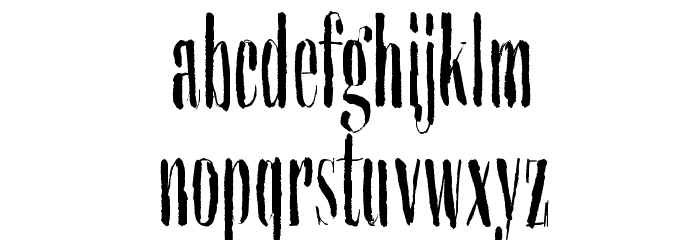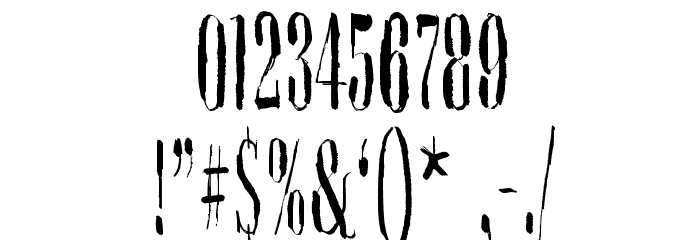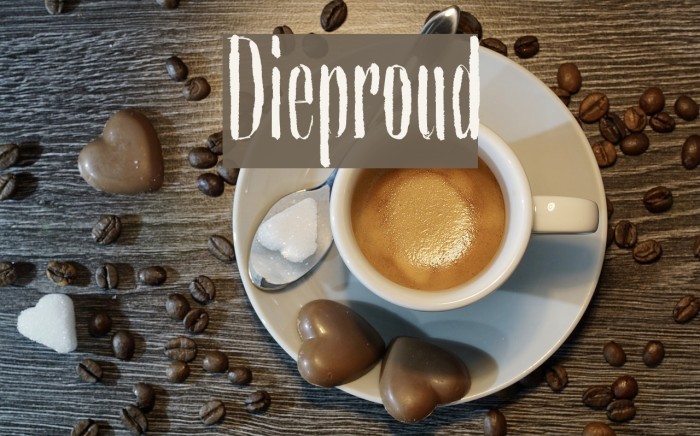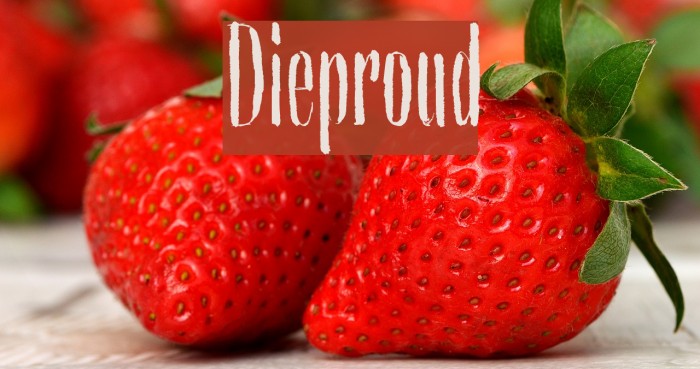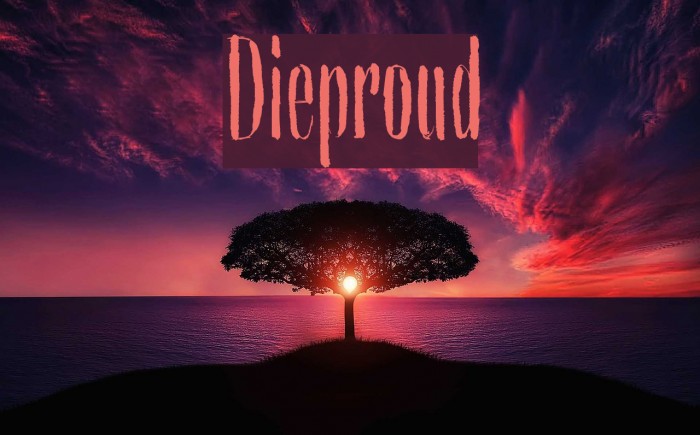
Dieproud Font
This font features a bold and distressed appearance, characterized by uneven edges and a hand-painted look. The uppercase letters are tall and narrow, while the lowercase letters maintain a consistent style with slightly more variation in width. The numbers and special characters follow the same rugged aesthetic, adding to the font's unique charm. The overall design suggests a vintage or grunge style, making it suitable for projects that require a bold statement or an artistic touch.
A bold, distressed font with a hand-painted, vintage look.
- Proposed Projects: Ideal for poster designs, album covers, branding for edgy or artistic products, and any project needing a bold, vintage aesthetic.
- Overall Style: Vintage, Grunge